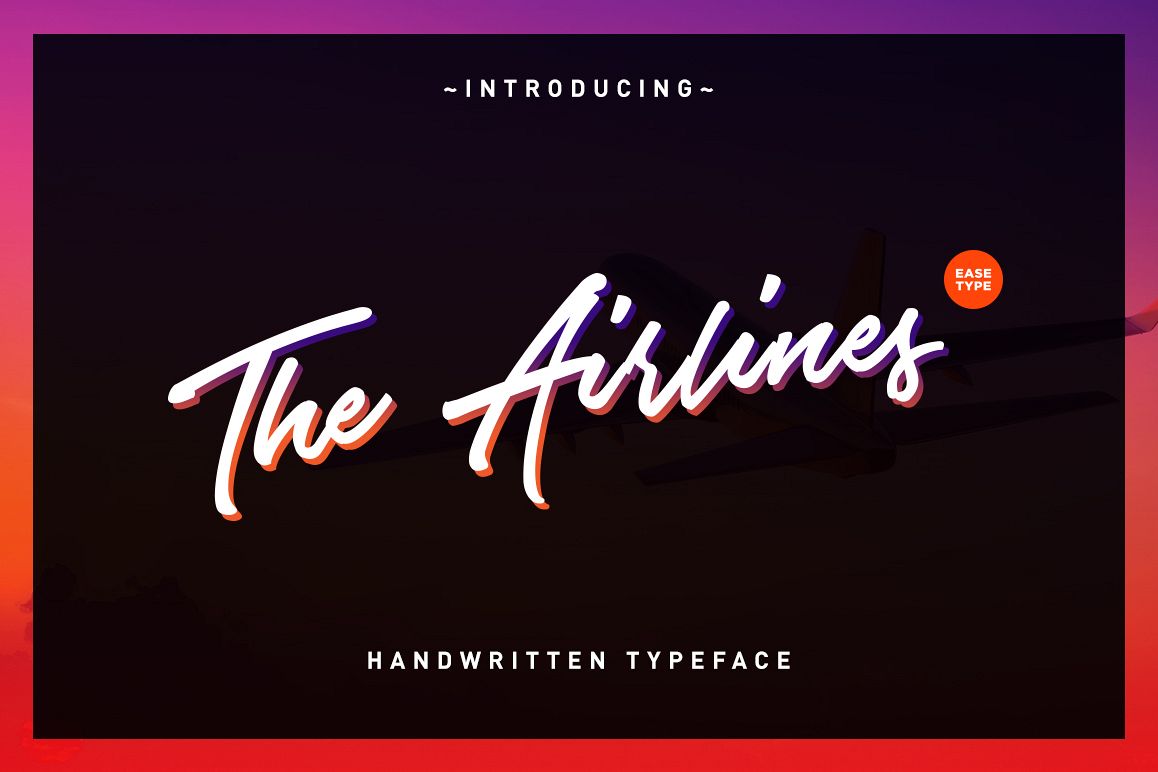
Improve your branding design with The Airlines! A clean, solid typeface & smooth curve, perfect for creating authentic hand-lettered display, logo, branding project, printing or for your website project.With a solid style, The Airlines can be use for a modern brands style; perfect for logos, headers, company or personal branding, product packaging, cards & handwritten quotes. The Airlines is packed full of great features to give you a stand out display font collection.Inside the Pack